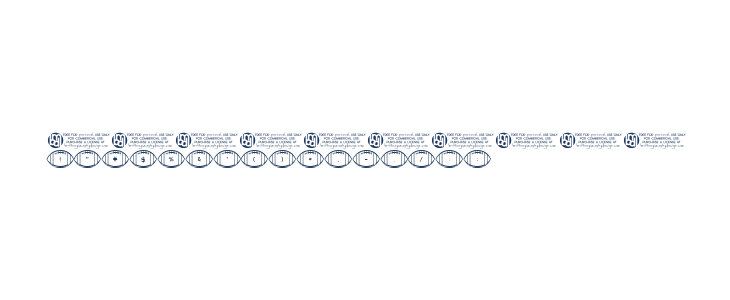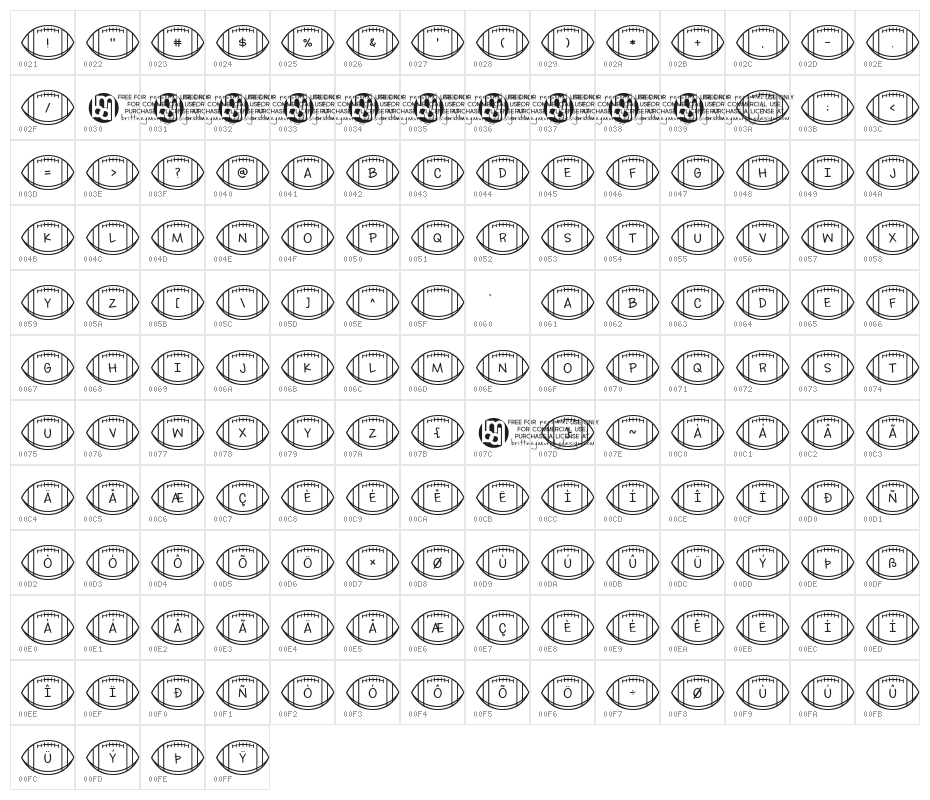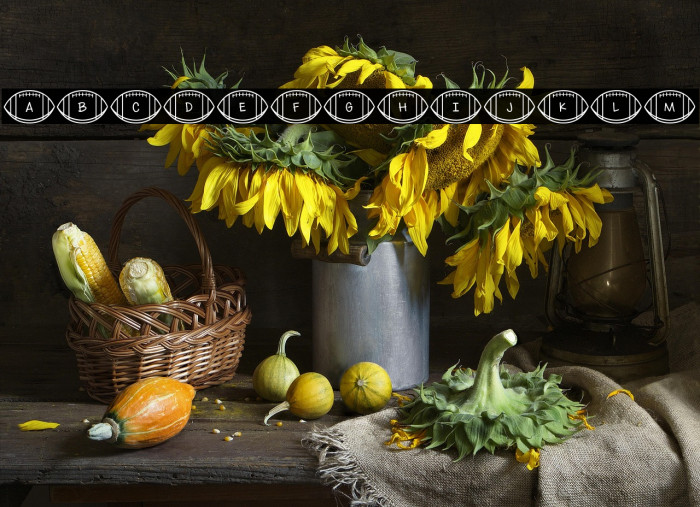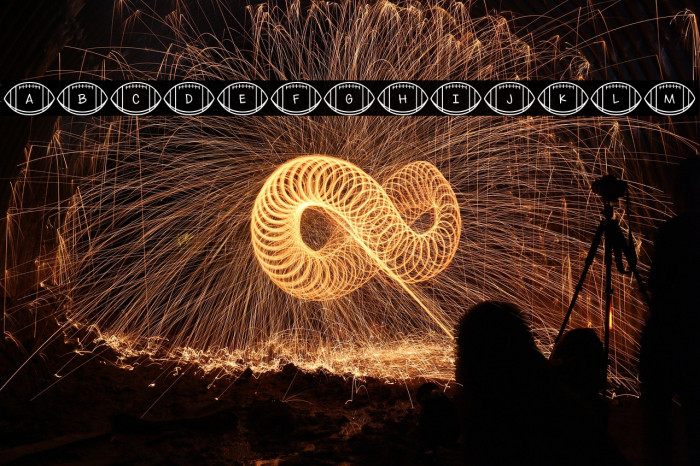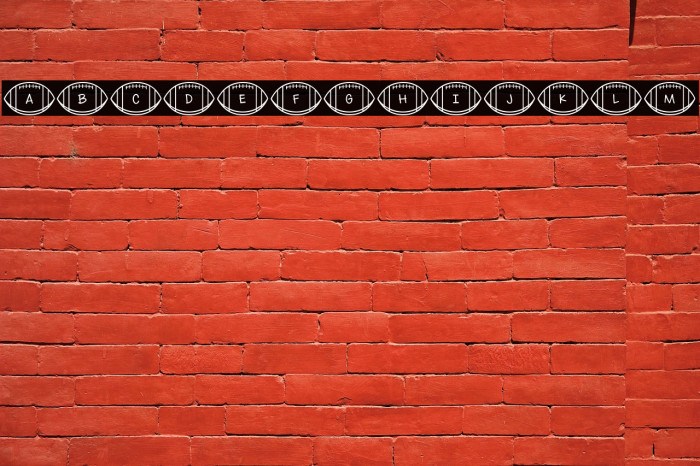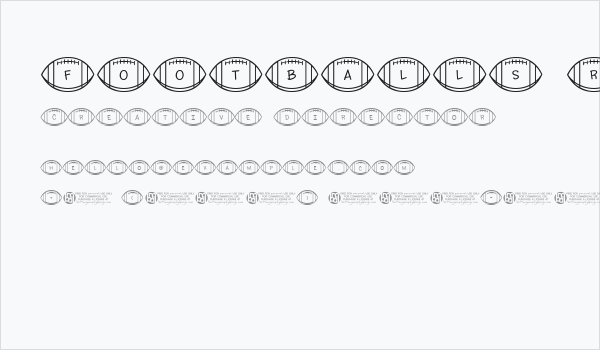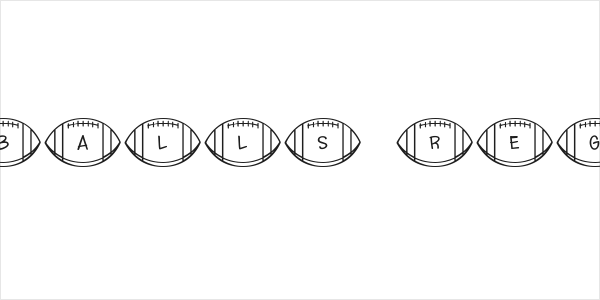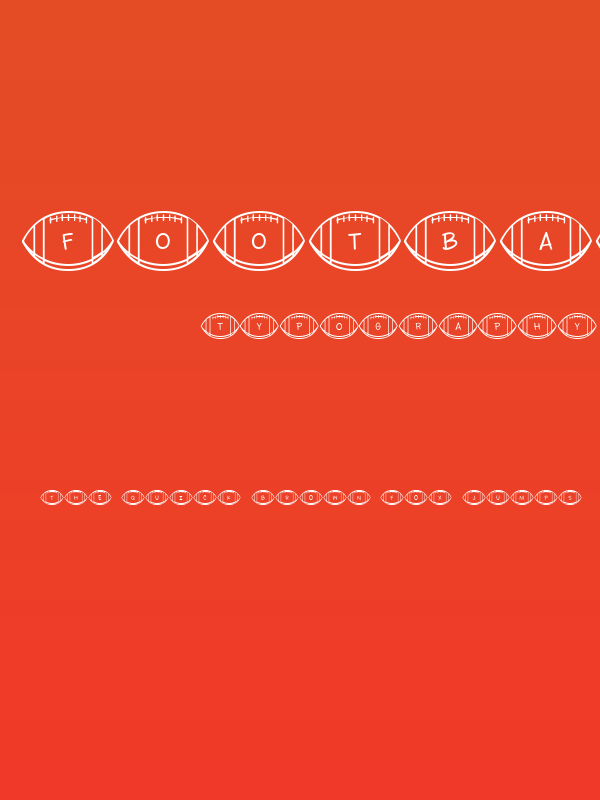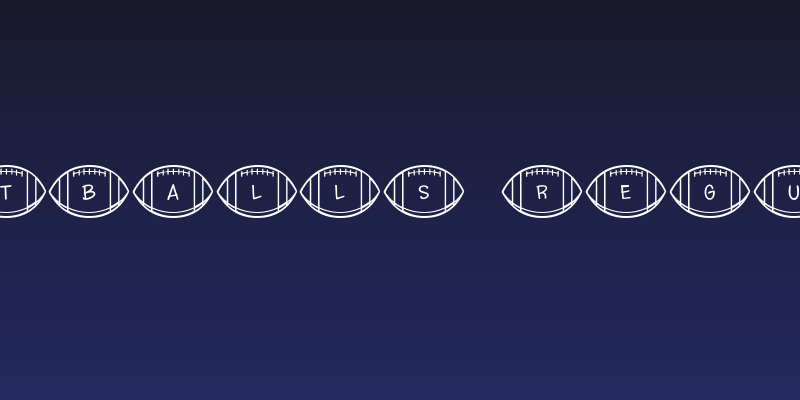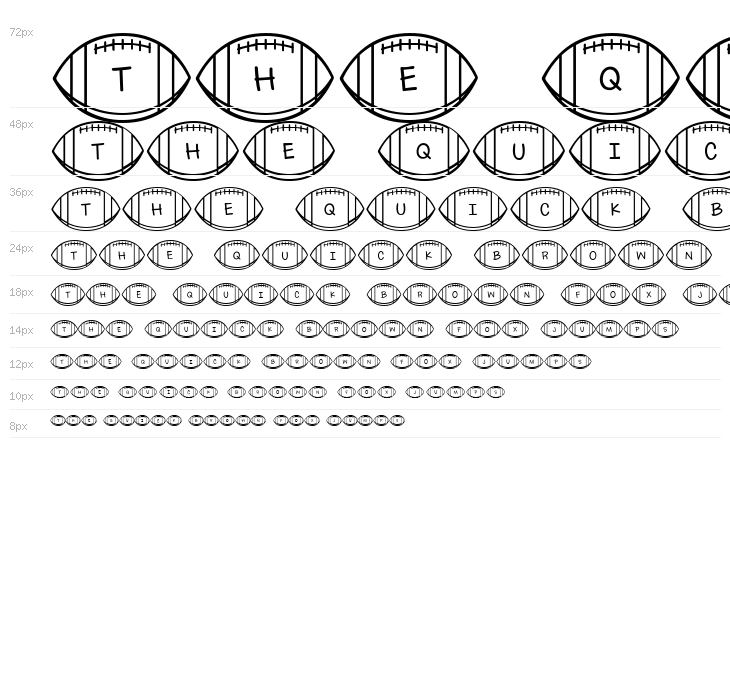
Footballs Regular Font
Footballs Regular Description
This playful and thematic font features characters enclosed within football shapes, making it ideal for sports-related designs. Each letter and number is centered within a stylized football, giving a unique and cohesive look. The font maintains a consistent size and shape for each character, ensuring uniformity across the text. The design is both decorative and functional, capturing the essence of sports enthusiasm. The special characters are also integrated into the football motif, providing a complete set for creative projects.
Overall StylePlayful, Thematic
Proposed ProjectsIdeal for sports event posters, team merchandise, children's sports programs, and themed party invitations.